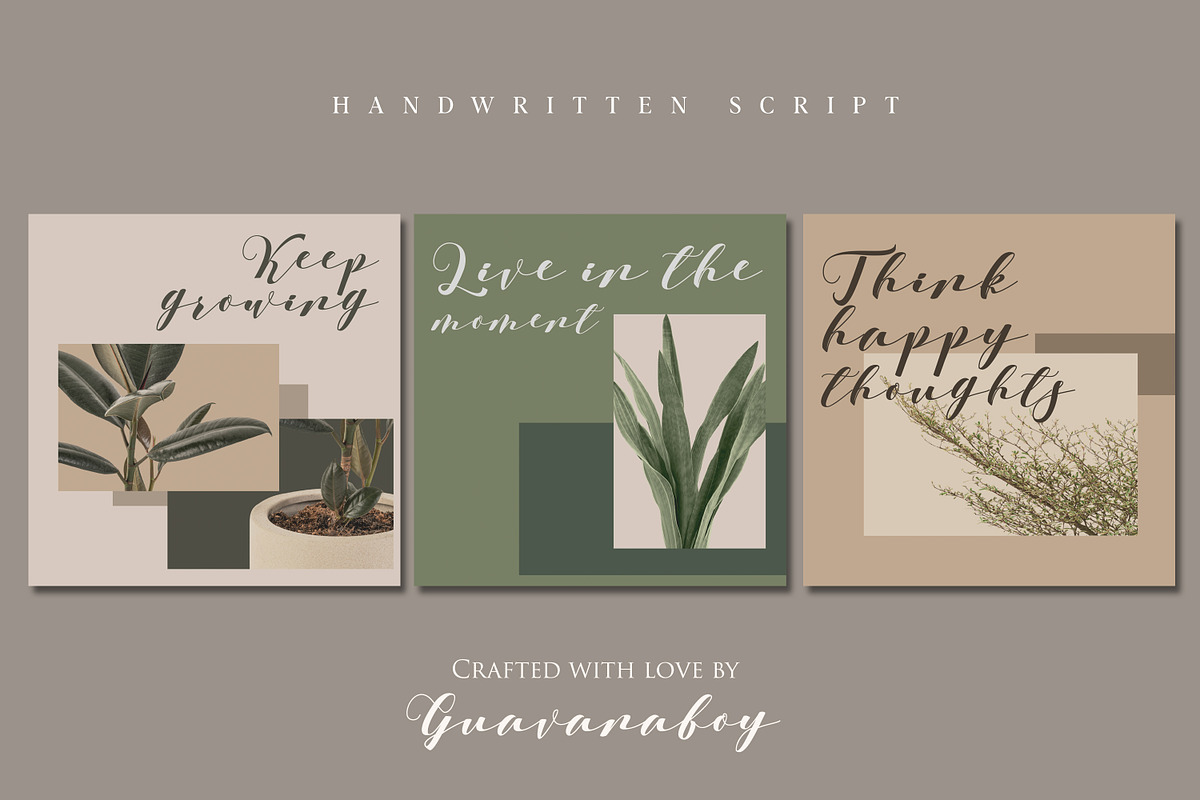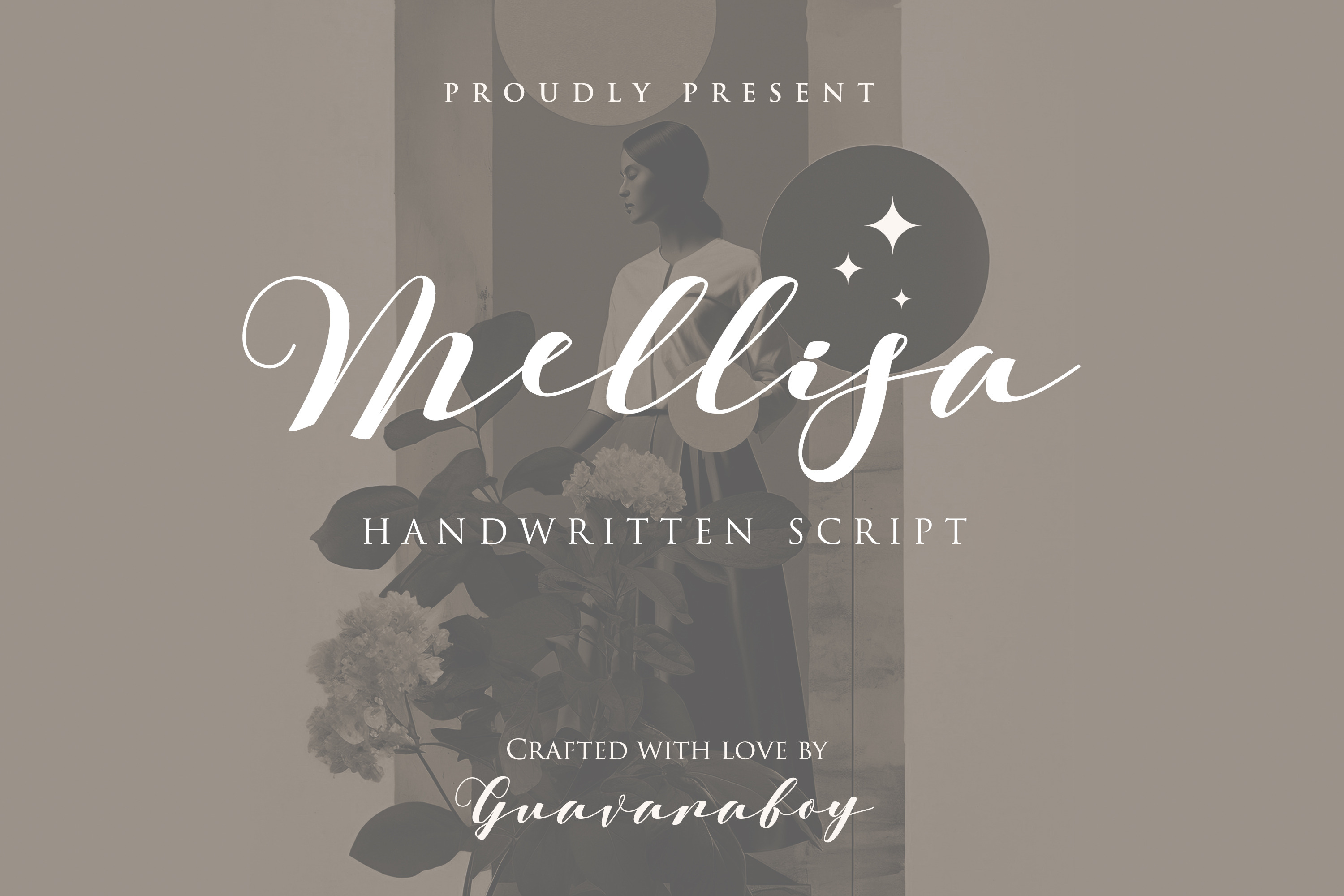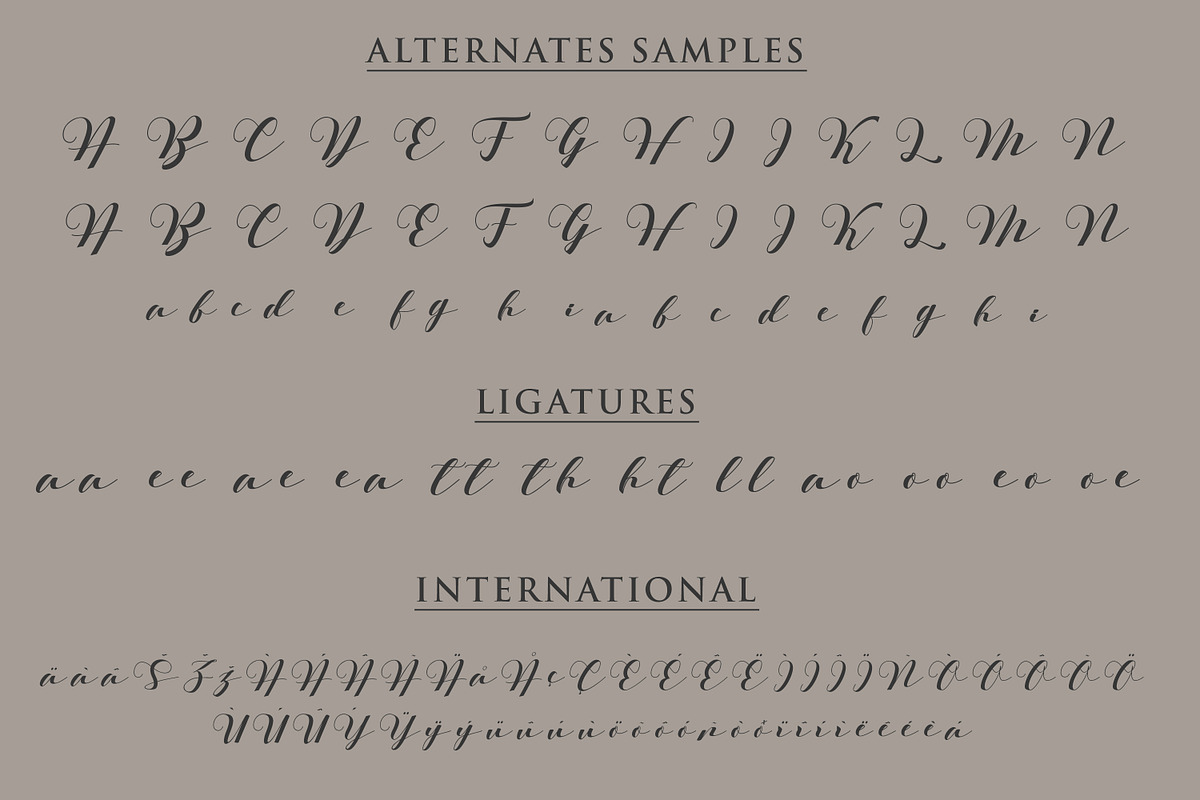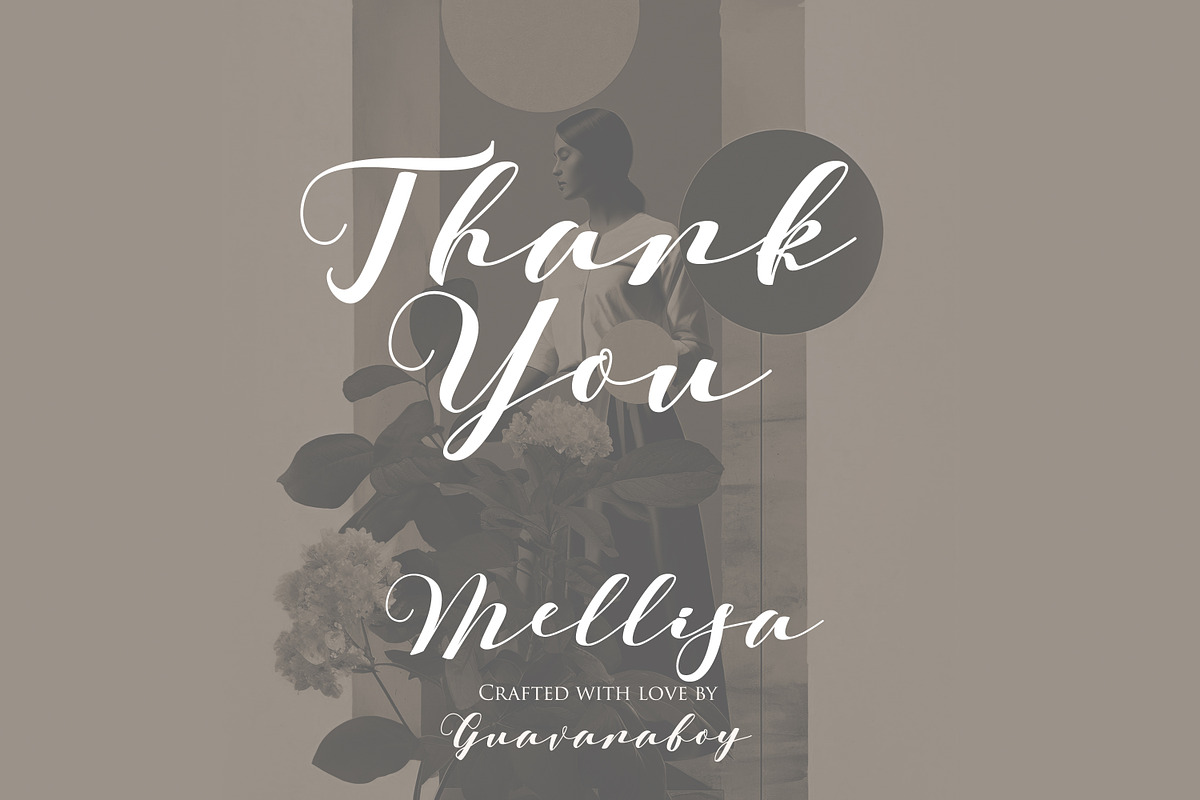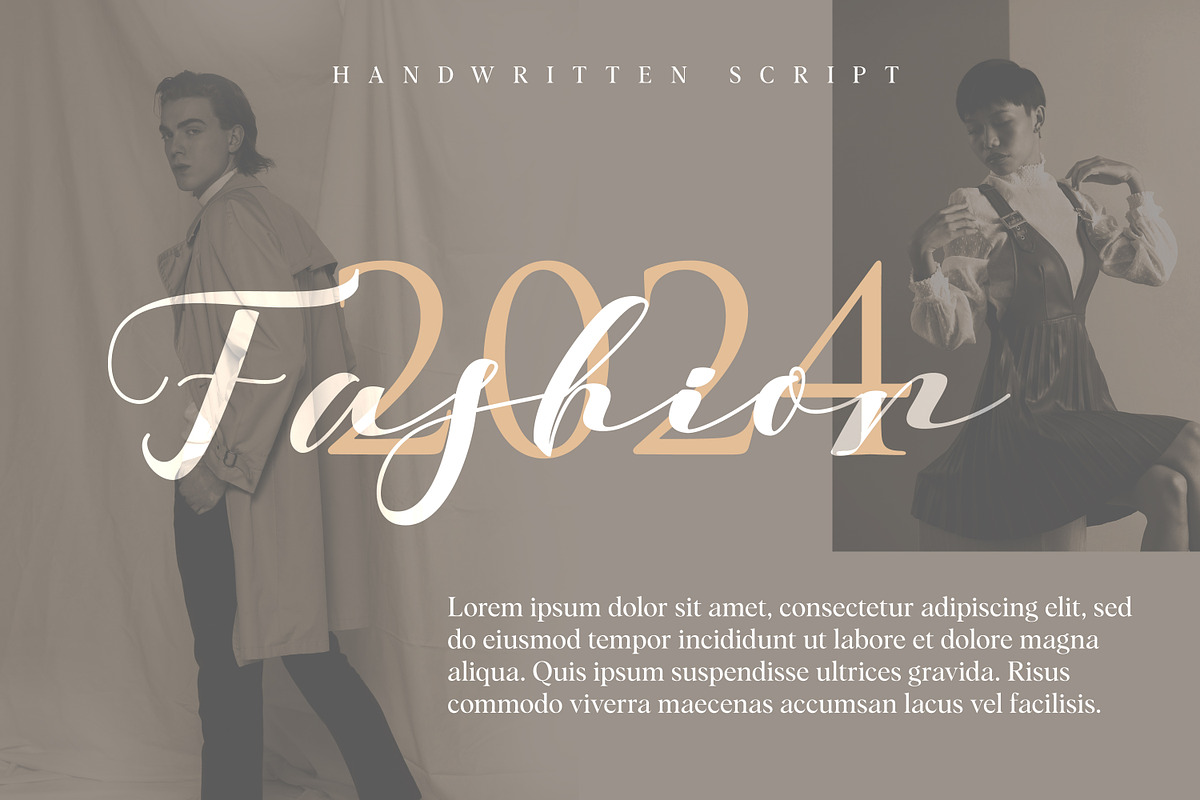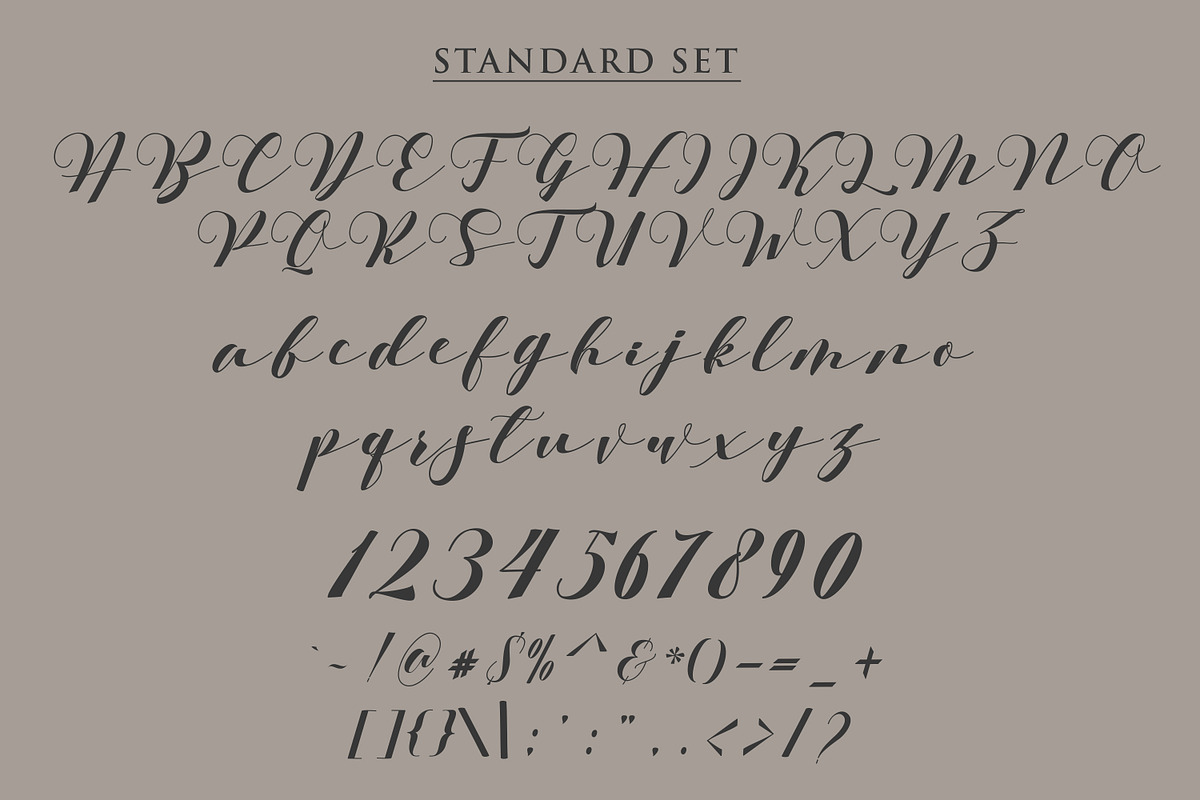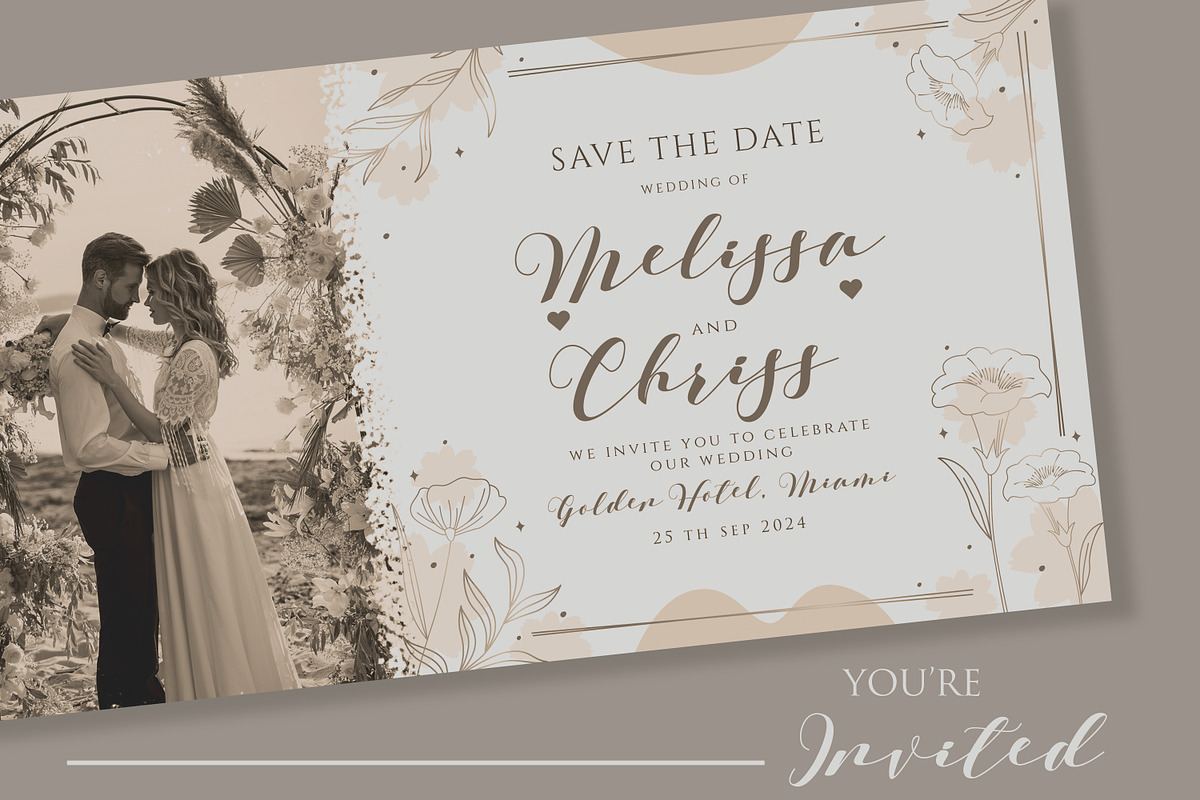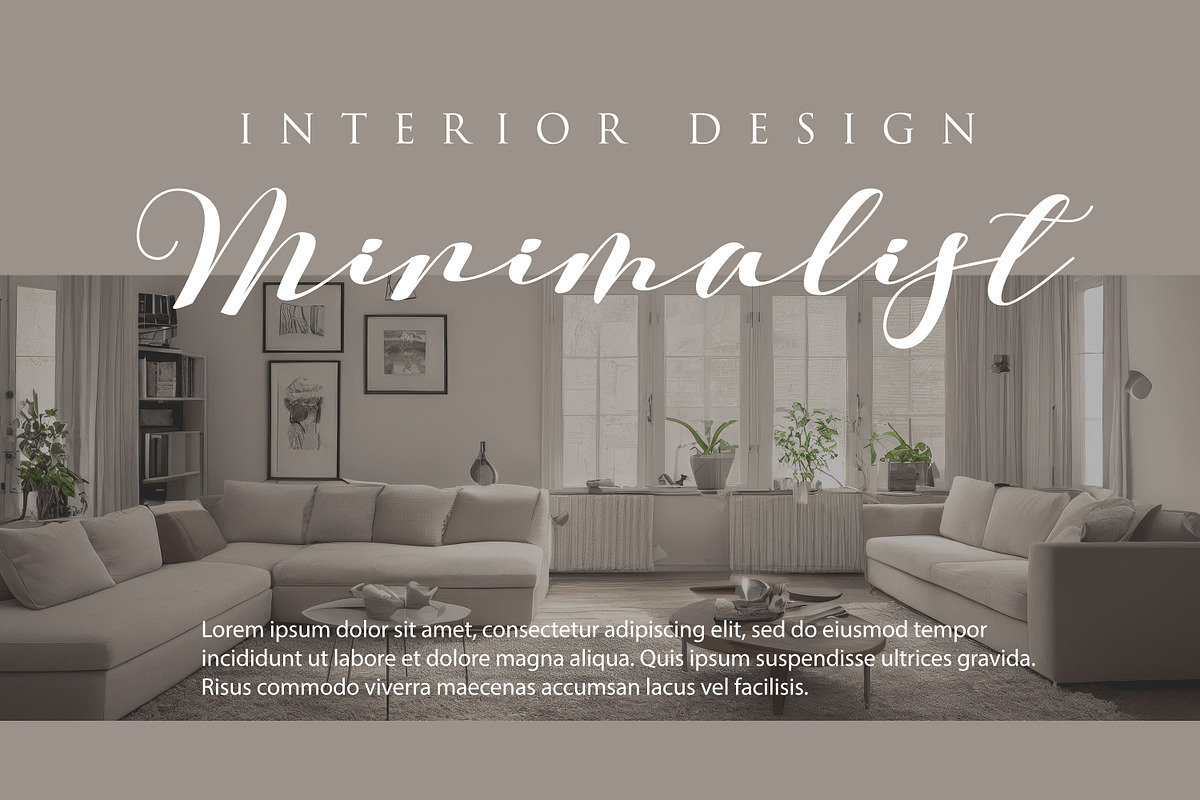
Mellisa Modern Handwritten Font
Mellisa - A modern signature font. Includes a stylish handwritten-style font to dress up your text - by Guavanaboy.
Perfect for : Social media, Logos, branding, wedding invitations, decor, signs, crafting, mugs, shirts, labels, stickers, business cards, greeting cards, posters, social media, planner prints, and websites.
- Multi-lingual support